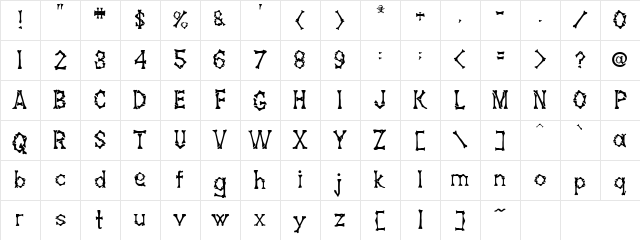
Bone Black Medium
Design Context for Bone Black
Bone Black is a composed and adaptable typeface that performs quietly and consistently across a wide range of design contexts.